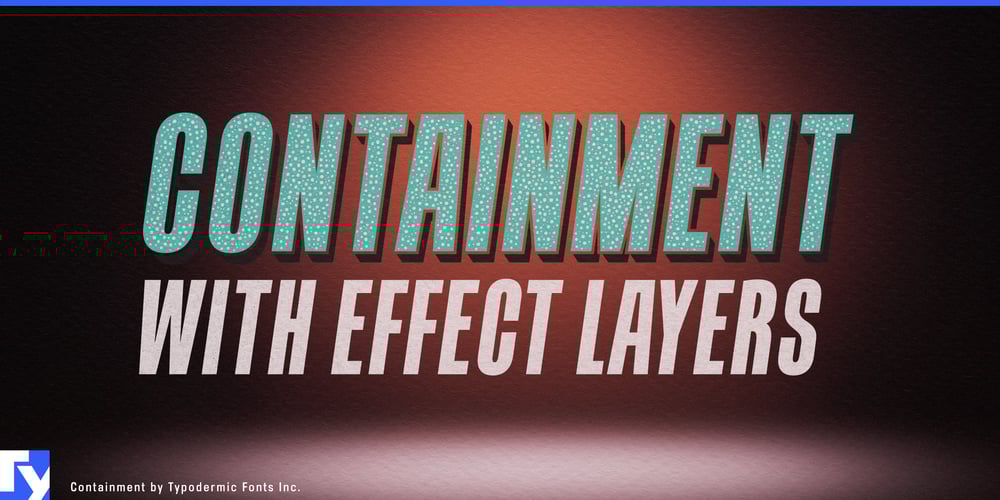
Containment Font Family was designed by Ray Larabie and published by Typodermic. Containment contains 4 styles and family package options. Unleash your creativity with Containment, a revolutionary font system that pushes the boundaries of typographic design. Built on the foundation of the renowned Tandelle typeface, Containment offers a multi-layered approach to headline creation that’s as versatile as it is visually striking.At its core, Containment is a quartet of fonts working in perfect harmony: a clean base layer, a dynamic shadow layer, a textured “crunchy-little-dots” layer, and a masterful combination of all three. This system empowers designers to craft headlines with depth, texture, and an unmistakable edge. Want to add a touch of effervescence, a sprinkle of grit, or a dusting of snow to your typography? Containment has you covered, allowing you to fine-tune your visual message with precision and flair.In the competitive world of advertising, where first impressions are everything, Containment gives you the tools to create show-stopping headlines that demand attention. Experiment with color combinations, layer interactions, and textural effects to develop a unique typographic voice that sets your brand apart. Whether you’re designing for print, digital media, or environmental graphics, Containment adapts to your creative vision, ensuring your message not only reaches your audience but resonates with them.Containment isn’t just visually versatile—it’s linguistically flexible too. This font system speaks the language of global design, supporting a vast array of Latin-based writing systems. From the flowing scripts of Western Europe to the crisp characters of Eastern European languages, Containment ensures your message maintains its impact across borders. Whether you’re crafting headlines in French, Polish, or Indonesian, this font system maintains its distinctive style while honoring linguistic diversity.In an industry where innovation is the lifeblood of success, Containment offers you the chance to break free from typographic conventions. It’s more than a font—it’s a creative partner that challenges you to think differently about how text and design intersect. Elevate your projects, captivate your audience, and contain your ideas no longer. With Containment, your typography becomes a powerful tool for communication, branding, and artistic expression.Embrace the future of headline design. Choose Containment and watch as your typography transforms from mere words into visual experiences that leave lasting impressions.